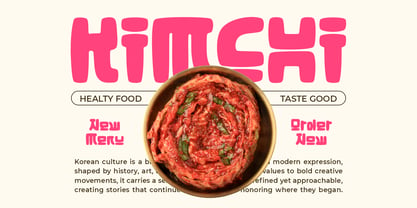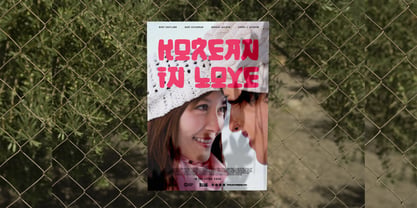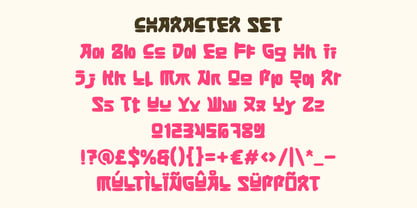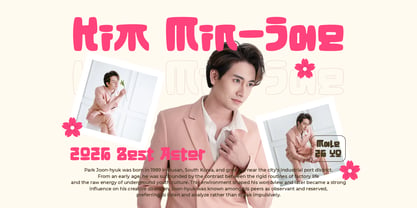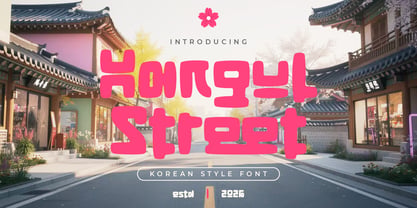
Hangul Street
by Shanaf
The Hangul Street Font Family was designed by Yesie Erma Yunita and published by Shanaf. Hangul Street contains 1 styles. More about this family
Hangul Street Korean Style Font is a display typeface built with thick strokes and soft, rounded geometry. Each letter feels compact and wide, creating a strong visual block on every word. Stroke weight stays consistently bold, which helps the font stand out instantly in display use. Letter height feels balanced rather than tall, giving text a grounded and approachable rhythm. Corners appear smooth and friendly, avoiding sharp angles or aggressive cuts. Counters remain open enough to support readability at large sizes. Spacing feels slightly tight, which reinforces a solid and confident street-style appearance. The structure favors simplicity, allowing shapes to communicate personality without complex details. Numbers and symbols follow the same rounded construction, keeping layouts cohesive. The overall form feels energetic, youthful, and expressive, with a clear foreign look inspired by modern Korean visual culture. Hangul Street Korean Style Font carries a playful, modern, and pop-driven personality strongly associated with Korean street branding. The style feels bold, fun, and eye-catching, making it ideal for K-pop related visuals, food packaging, and youth-focused brands. This font works especially well for logos, branding, headlines, posters, stickers, and advertising materials. It also suits product packaging, social media graphics, magazine titles, and film or event titles. Hangul Street Korean Style Font helps designs communicate freshness and cultural identity quickly. The bold shapes ensure visibility from distance, while rounded forms keep the tone friendly. Designers can use it to bring a Korean-inspired atmosphere into global projects. The font supports creative storytelling that feels modern, trendy, and culturally expressive. Hangul Street Korean Style Font becomes a strong visual voice for brands seeking an energetic and international presence.